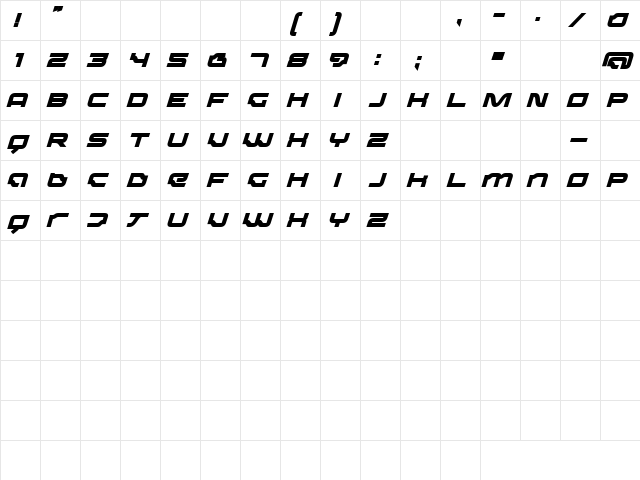
Dominator BlackItalic Free Font
Dominator BlackItalic
Style: BlackItalic
Complete Dominator BlackItalic glyph index. Displaying only characters natively supported by Dominator BlackItalic font.
Design Context for Dominator
Dominator is a composed and adaptable typeface that performs quietly and consistently across a wide range of design contexts. The slanted form adds forward momentum and visual energy.
Pro Tip: Use Dominator for emphasis, pull quotes, and subheadings where its slanted energy can add rhythm to the layout.